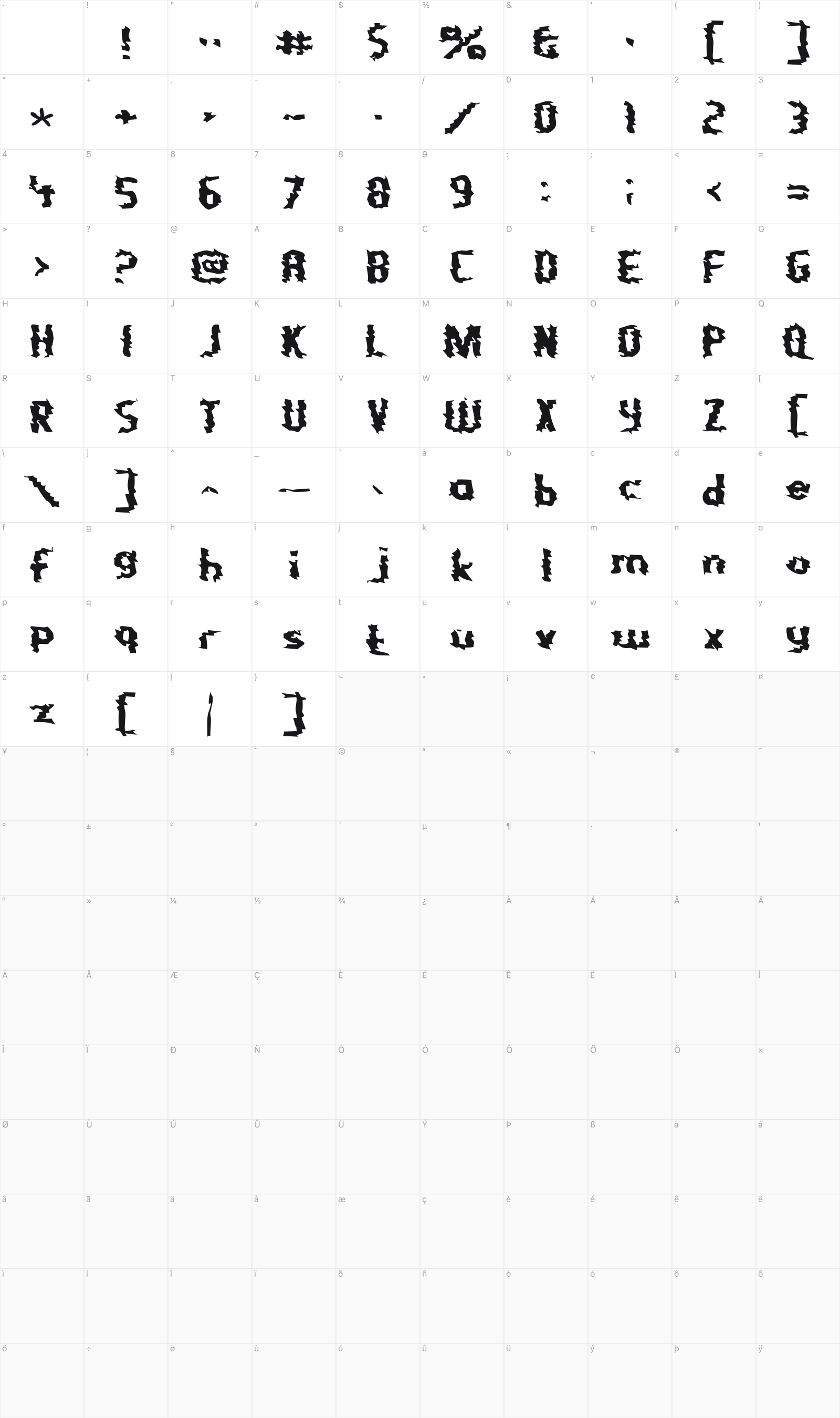
Nightporter
Nightporter is a bold, jagged display face from Ray Larabie with rough, broken edges that give every letter a sense of unease. The distressed texture feels deliberate rather than decorative, like type that's been clawed at or left to decay. It fits naturally into horror posters, haunted house branding, and dark-themed headlines where you want something that looks genuinely unsettling at large sizes.